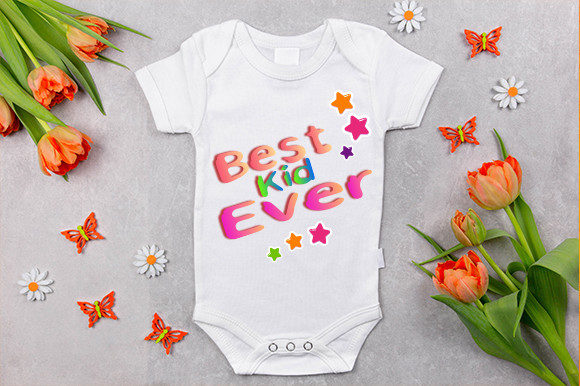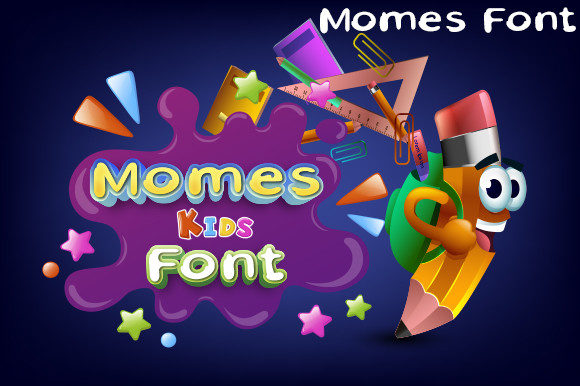
Introduction to Momes Font Font
Fonts play a crucial role in design, and the Momes Font font is a typeface that brings both character and versatility to any project. Whether you’re working on a branding project, a website, or a print design, the Momes Font font offers a unique style that can elevate your work.
Momes is a fun, simple and playful display font.
Whether you use it for cartoon related designs, children games, kids book cover, children t-shirt or just any creation that requires a lovely touch, this font will be an amazing choice .
Key Features of Momes Font Font
Why Choose Momes Font Font?
The Momes Font font is more than just a typeface – it’s a design tool that helps you communicate your message with style and clarity. Its unique character set and versatile design make it suitable for a wide range of applications, from elegant invitations to bold headlines.
With its carefully crafted letterforms and balanced proportions, the Momes Font font ensures readability and visual appeal across all mediums.
What makes Momes Font font special?
The Momes Font font stands out with its unique design, exceptional readability, and versatility across various design applications.